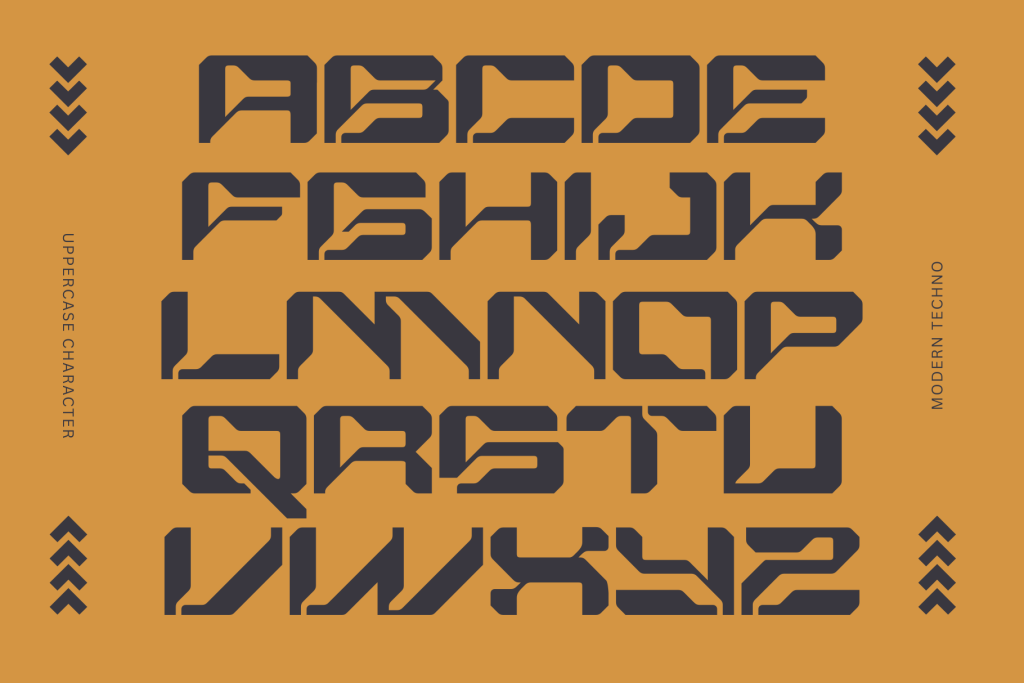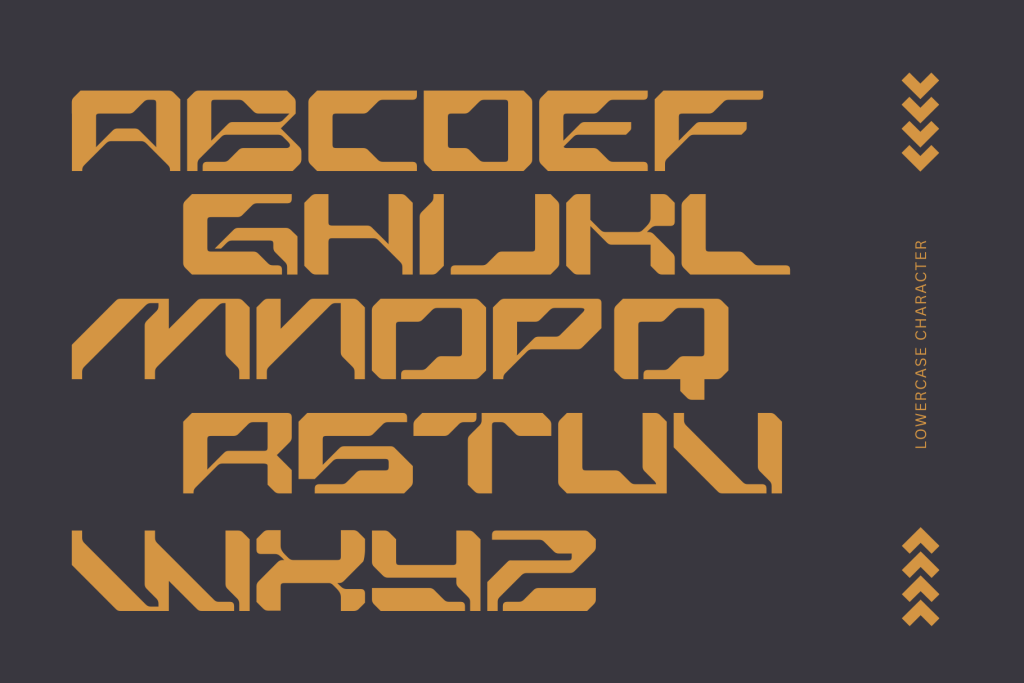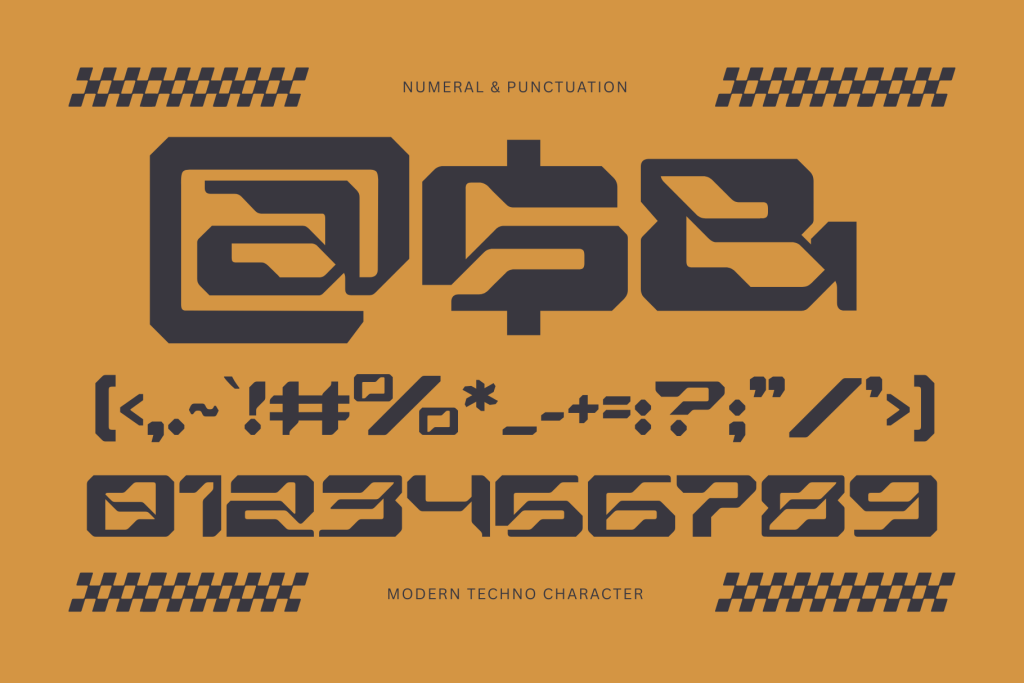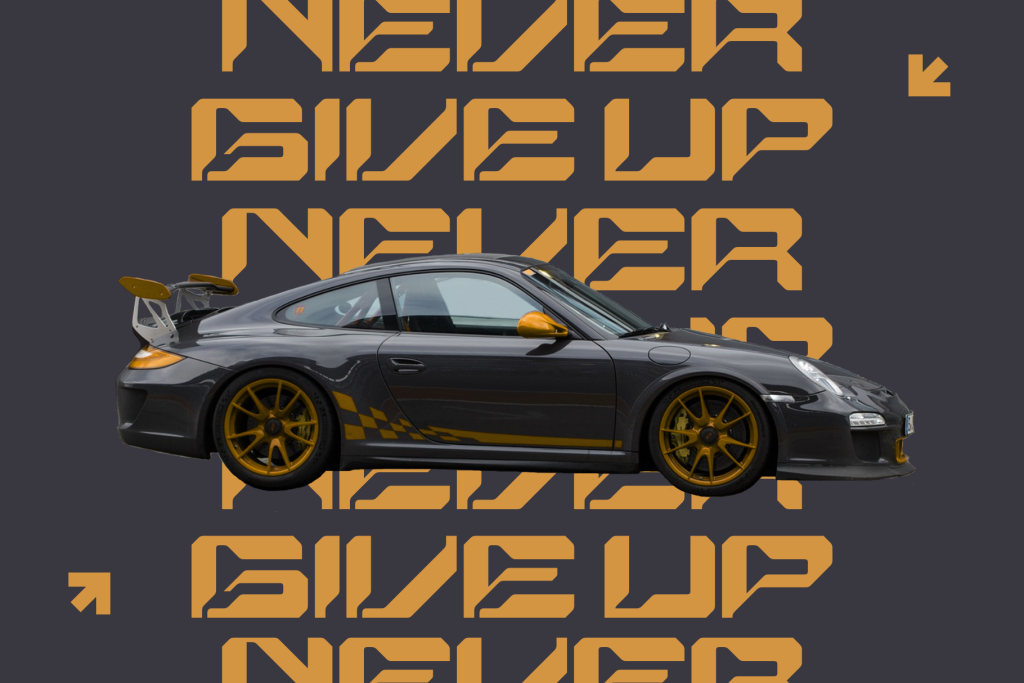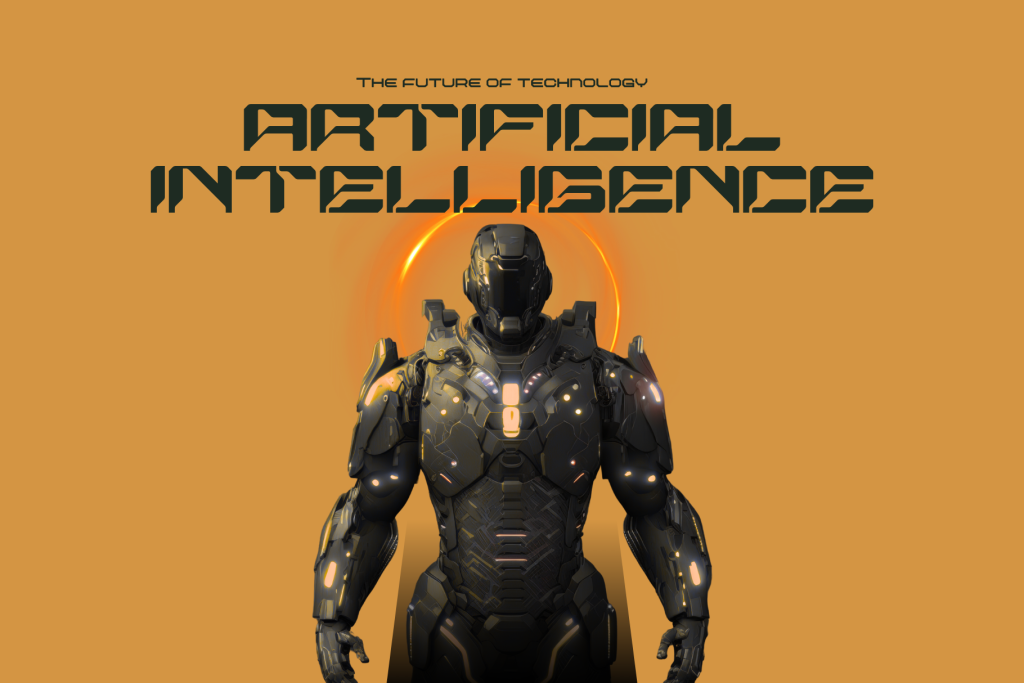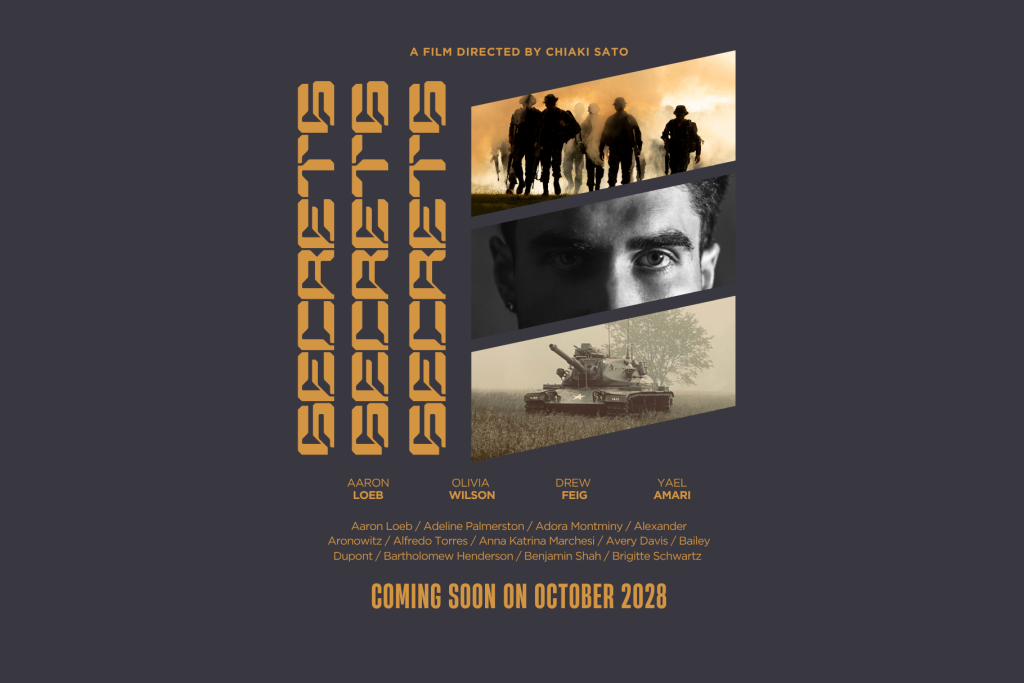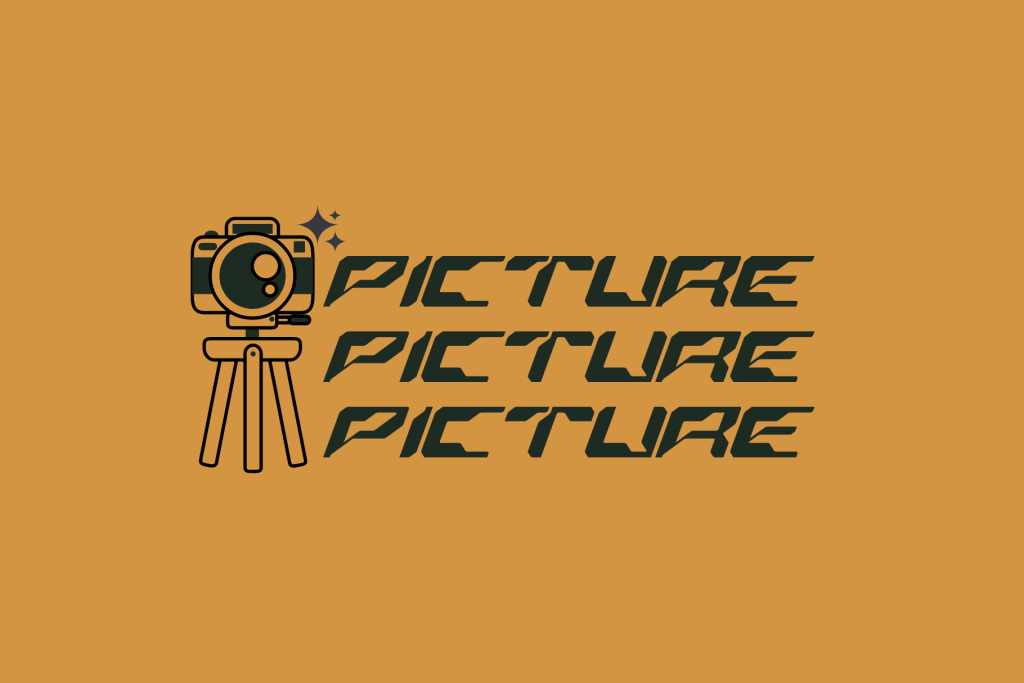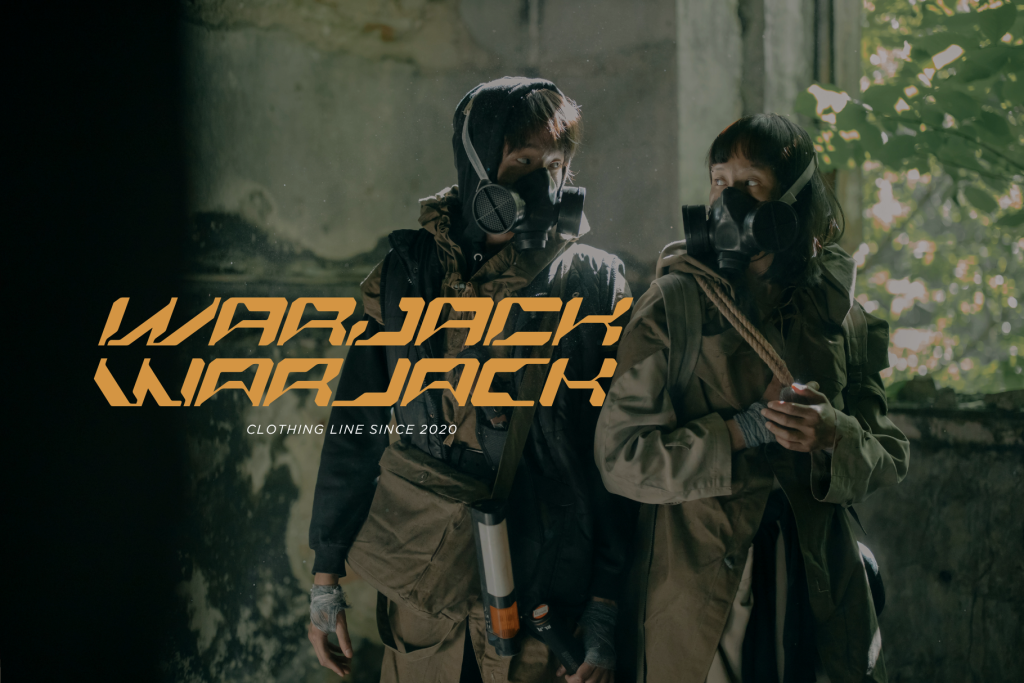
Echocore is a modern technology logo font designed for innovation and precision. Featuring clean lines, geometric structure, and futuristic appeal, it brings a cutting-edge look to any tech-driven brand. Available in Regular and Italic styles, Echocore offers versatility and clarity, ideal for digital interfaces, startups, and branding. Its sleek, high-tech aesthetic captures the essence of forward-thinking design.